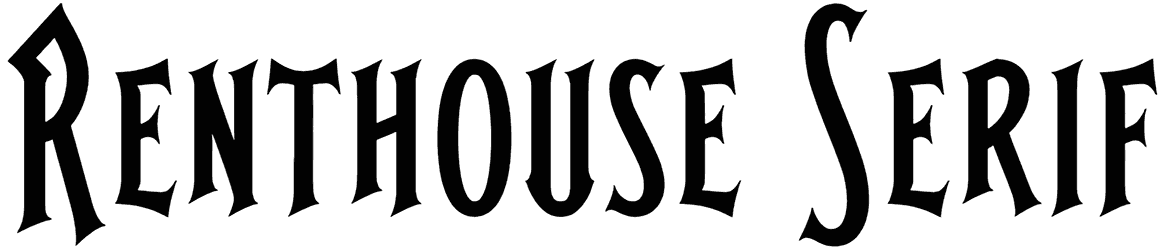
Renthouse Serif Font
Would you want to be prominent, so no one can take their eye off your invention? Take a look at Renthouse Serif, a horror font with a sharp look.
This Halloween font has an antique and risky vibe and is one of your finest pickups for posters, game screens, book covers, and a lot more designs with rational yet dread themes. Even without lowercase letters, you can give it a shot and be sure this witch font will work well.